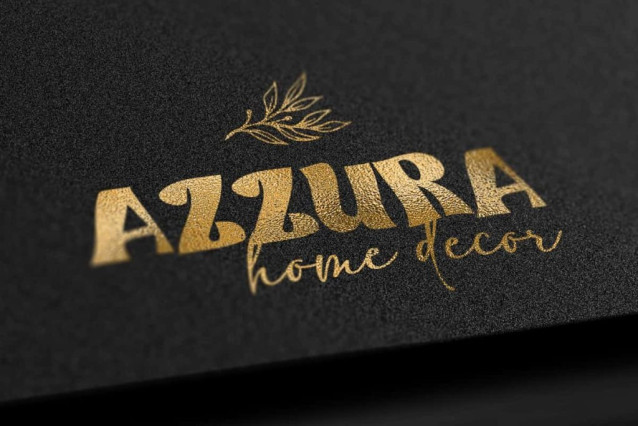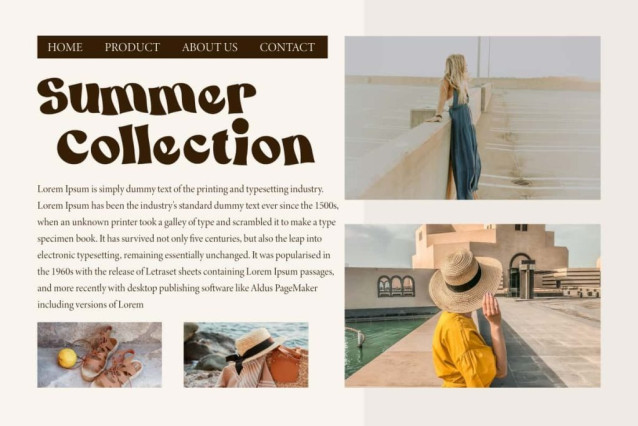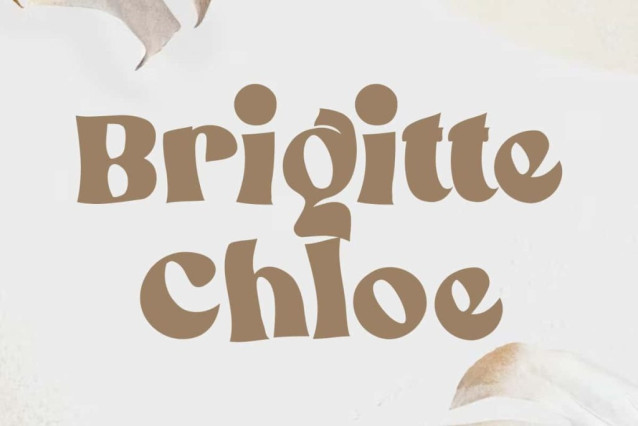
Brigitte Chloe Font is a fun playful bold display font inspired by classic serif styles. This beautiful typeface combines vintage charm with modern style. Perfect for blogs, business card, headers, label, logo, packaging, quotes title, website, etc.
Brigitte Chloe Font includes full set of Uppercase and Lowercase Basic Characters, Numbers, Punctuation, and Symbols. It will be very suitable for accessories and gifts, advertising, apparel, beauty product, e-commerce, fashion, graphic design, home furniture, jewelry, pharmaceuticals, real estate, spa salon and more. Your perfect choice for unparalleled style and enduring beauty. Unleash your creativity!